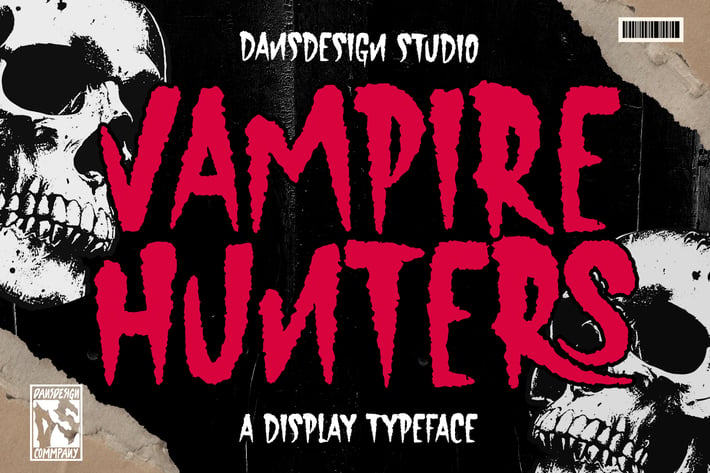
Vampire Hunters Horror Display Font
Vampire Hunters Horror Display Font a distinct, highly detailed. Marker Display Font.
It would make a great choice for exquisite retro-urban designs, business branding, logos, Apparel designs, and more.